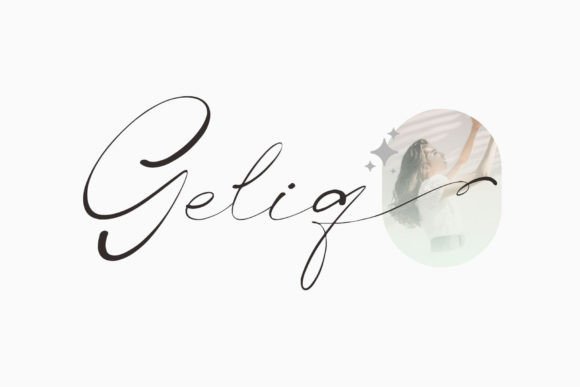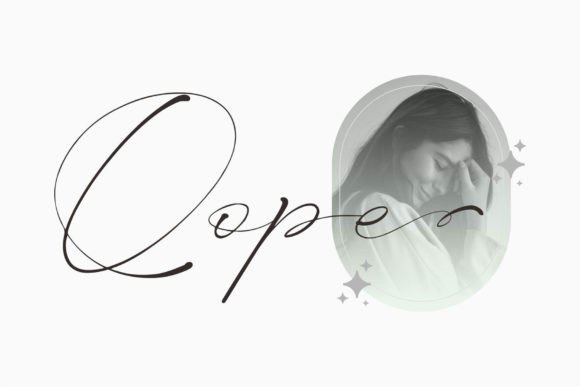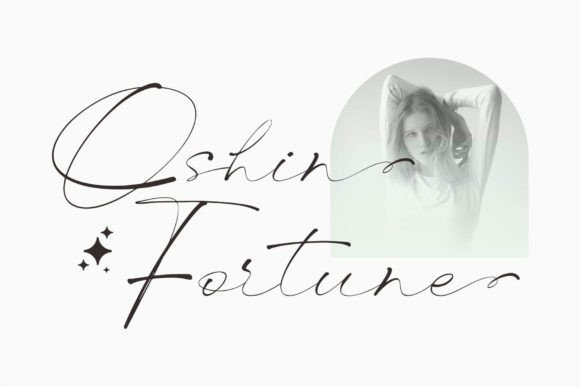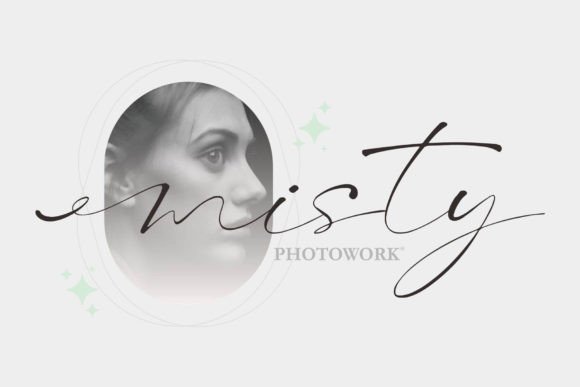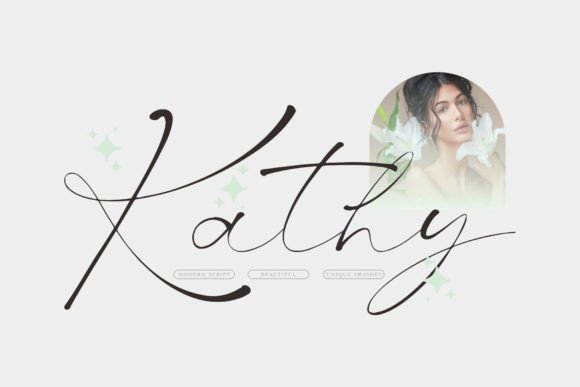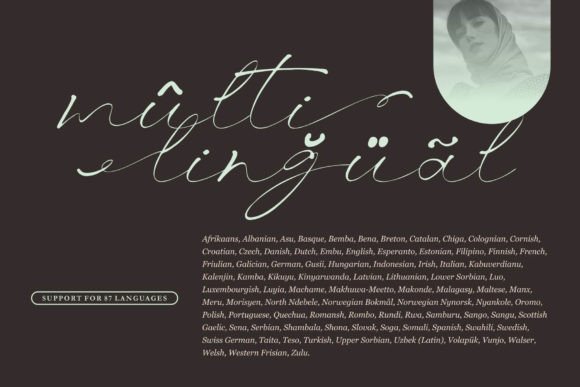
Introduction to Molqtis Font
Enter Molqtis Font, a romantic and unique script font designed to captivate and inspire. With its high-quality design and PUA encoding, this font is an invaluable resource for any creative project. Whether you’re working on a free download or a paid design, Molqtis Font is sure to be an asset to your library, providing a transparent background for your imagination to shine.
As a valuable addition to any design resource, Molqtis Font is poised to take your creative projects to the next level. With its versatility and romantic charm, this font is perfect for a wide range of applications, from wedding designs to branding and beyond.
- Unique, modern design aesthetic that sets it apart from other fonts
Honest Review: Molqtis Font
As a designer, I’m always on the lookout for high-quality design resources to enhance my creative projects. Recently, I came across the Molqtis Font, which caught my attention with its unique and modern design.
Here’s what works well about the Molqtis Font: ✨ It’s free to download, making it an excellent addition to any design project. ✨ The font is highly customizable, allowing me to experiment with different styles and layouts. ✨ It has a transparent background, which makes it perfect for overlaying on images or videos. ✨ The font is also incredibly versatile, suitable for a wide range of creative projects, from branding and marketing materials to digital art and graphic design.
However, there are a few limitations to consider: ⚠️ The font may not be suitable for all design projects, particularly those that require a more traditional or serif font style. ⚠️ Some users may find the font’s modern design too trendy or gimmicky.
Overall, I’m impressed with the Molqtis Font’s high quality and versatility. While it may not be perfect for every design project, it’s an excellent resource to have in your toolkit. I’d definitely recommend it to fellow designers looking for a unique and modern font to add some flair to their creative projects.
- Perfect for branding, marketing, and digital art projects
Experiment with different font sizes, colors, and combinations to achieve the desired effect. Use Molqtis Font to add a touch of creativity to your designs, and take advantage of its high-quality design to elevate your projects.
Molqtis Font is perfect for various creative projects, including graphic design, digital art, presentations, and documents. Its transparent background and high-quality design make it a valuable resource for designers and artists.